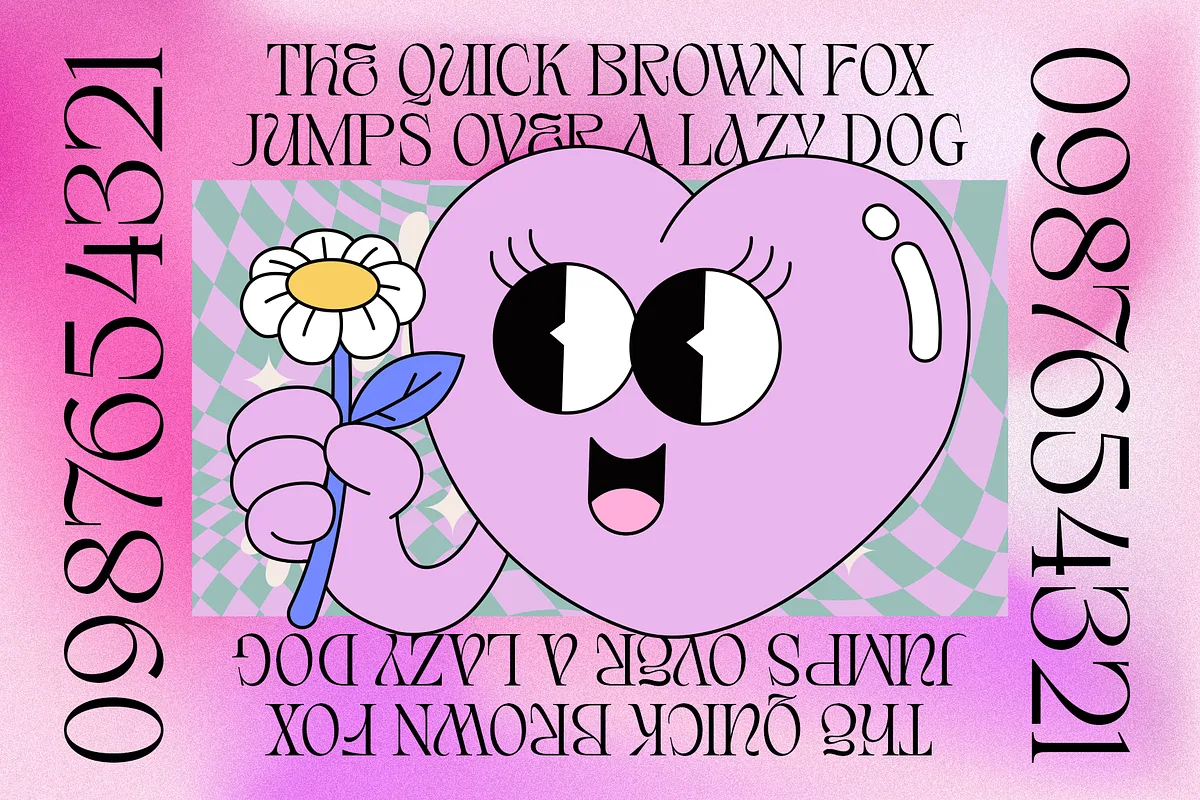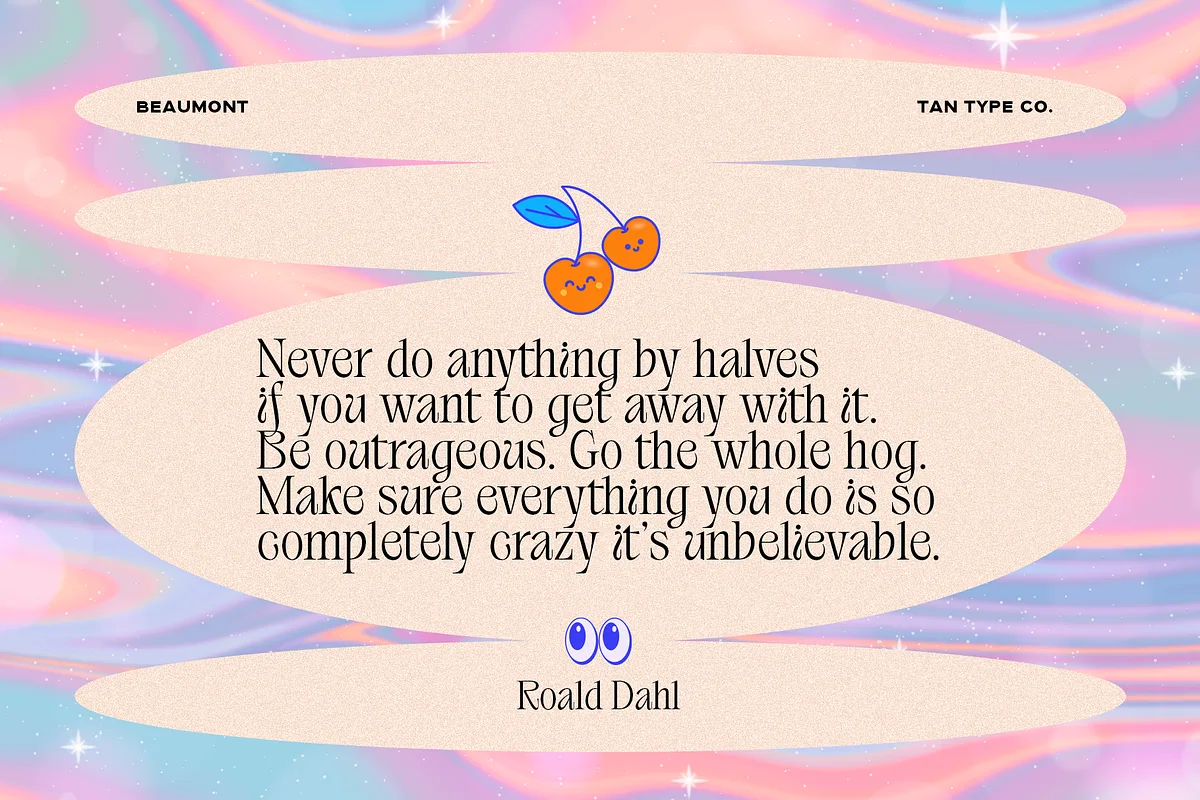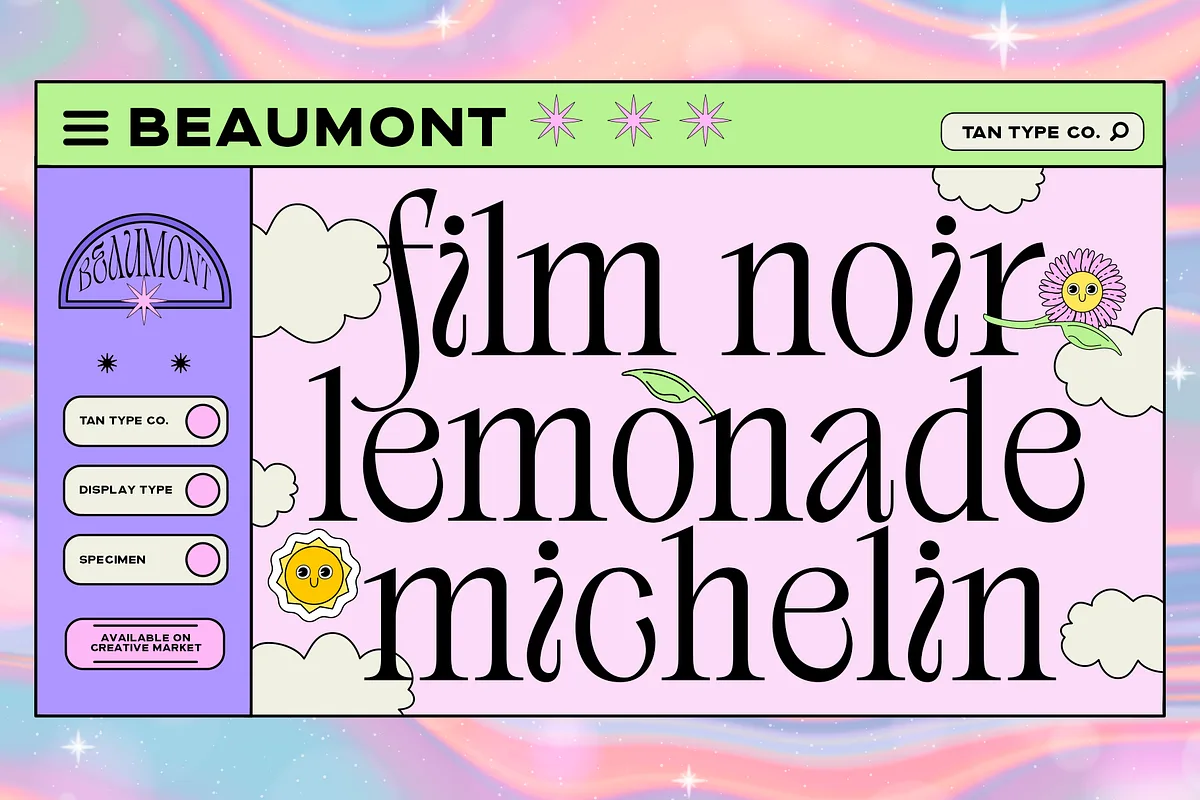
Tan Beaumont is an elegant yet playful serif font. Evoking a classy sense found in old-style serifs, it’s a great font for fashion, apparel projects, signatures, album covers, logos, branding, magazines, social media, & advertisements, but also works great for other projects.
Tan Beaumont Font – Playful Serif